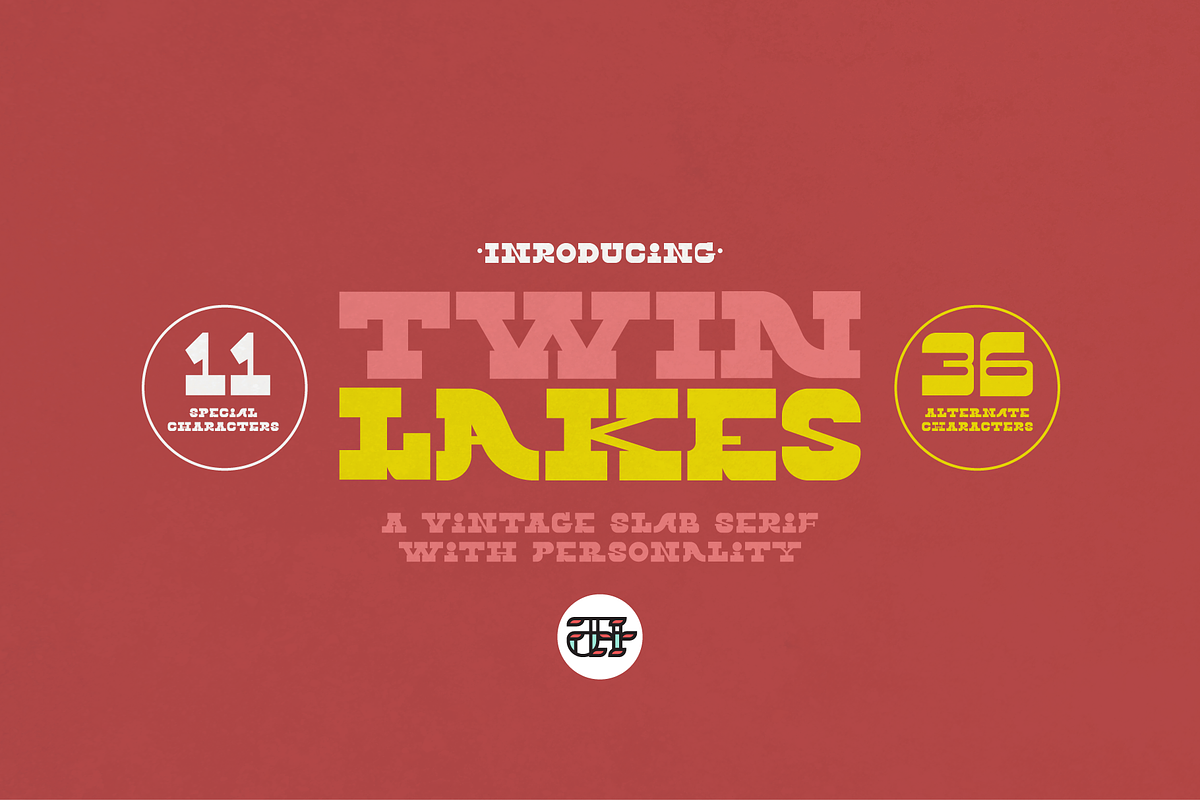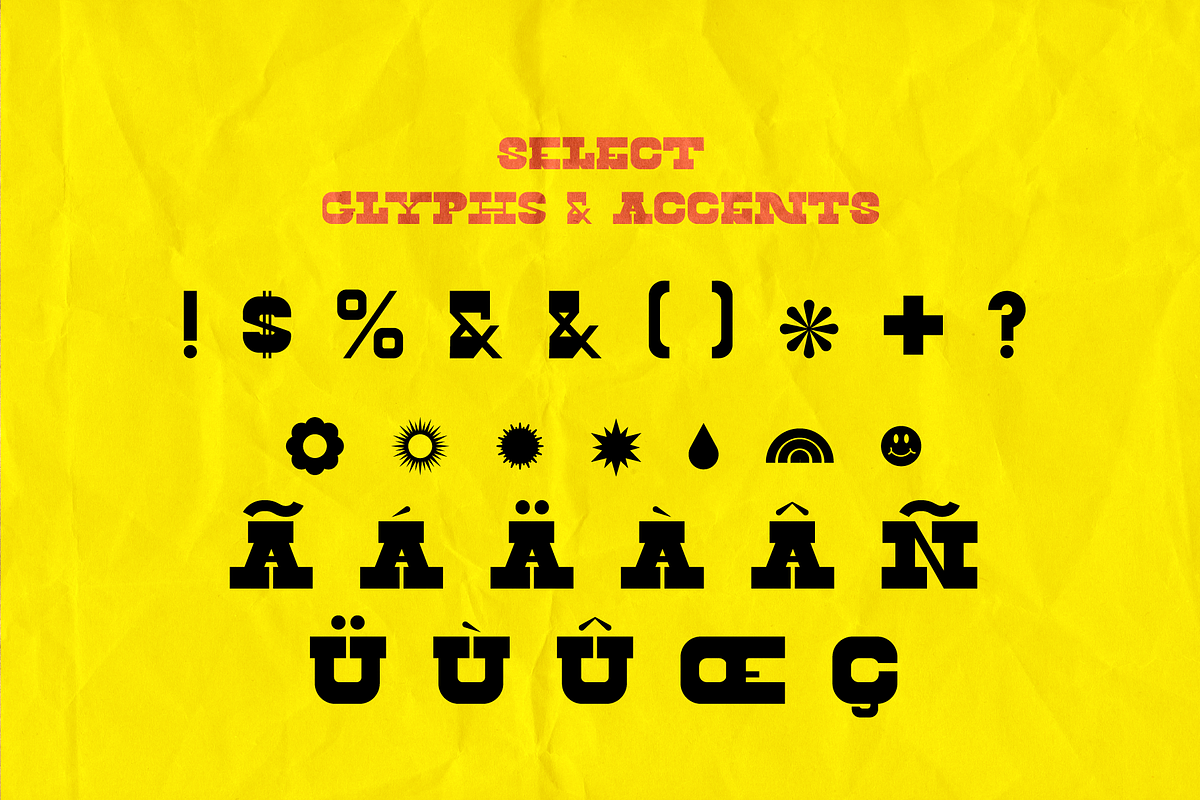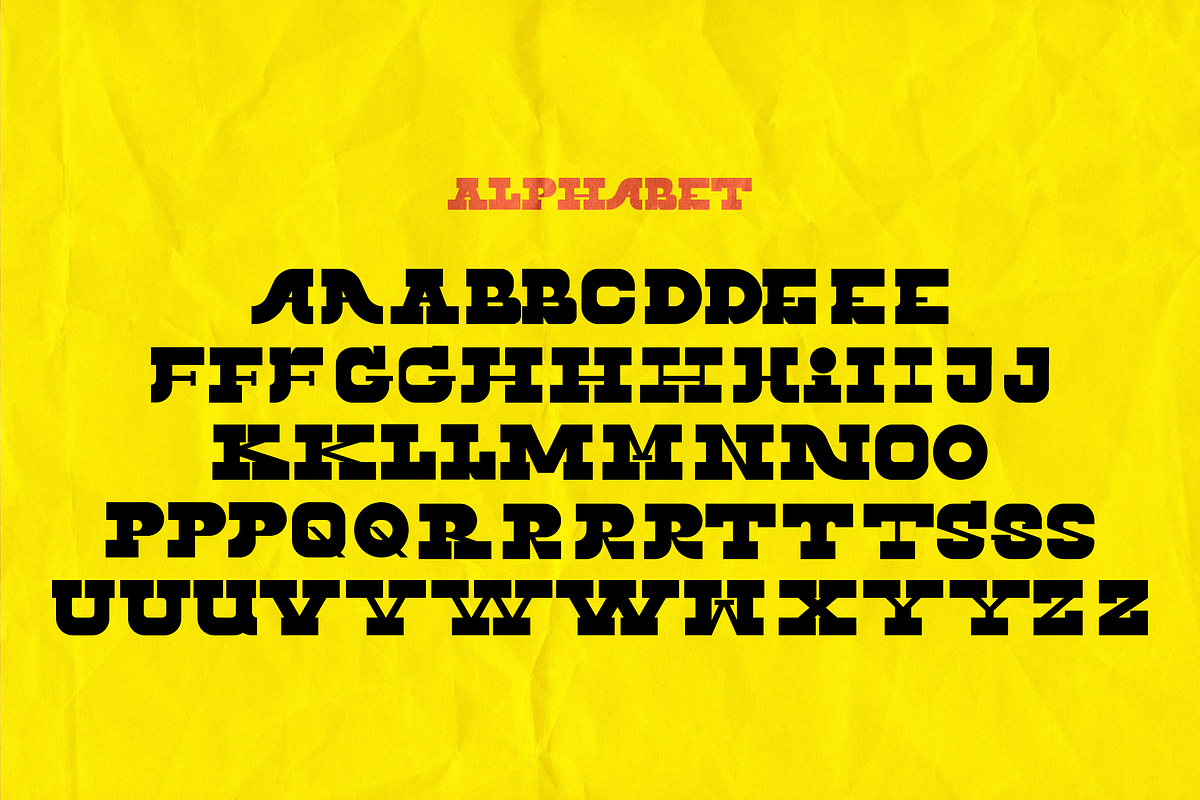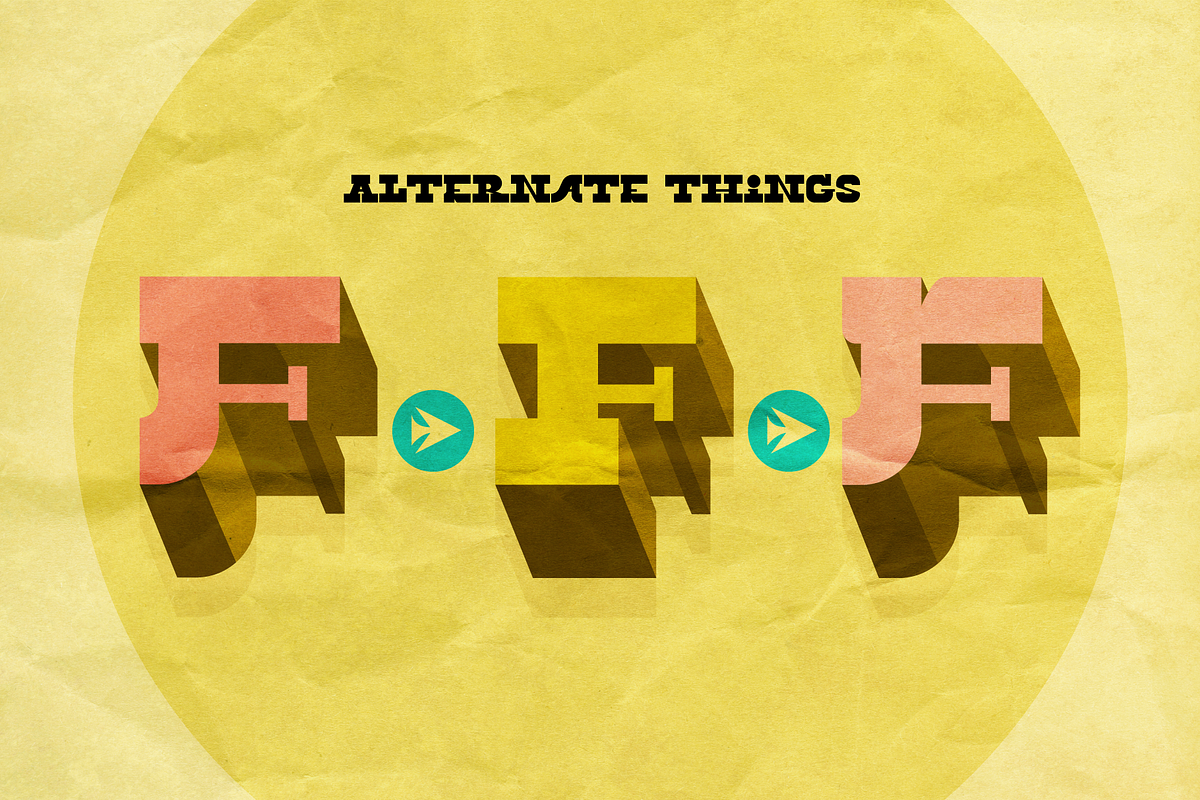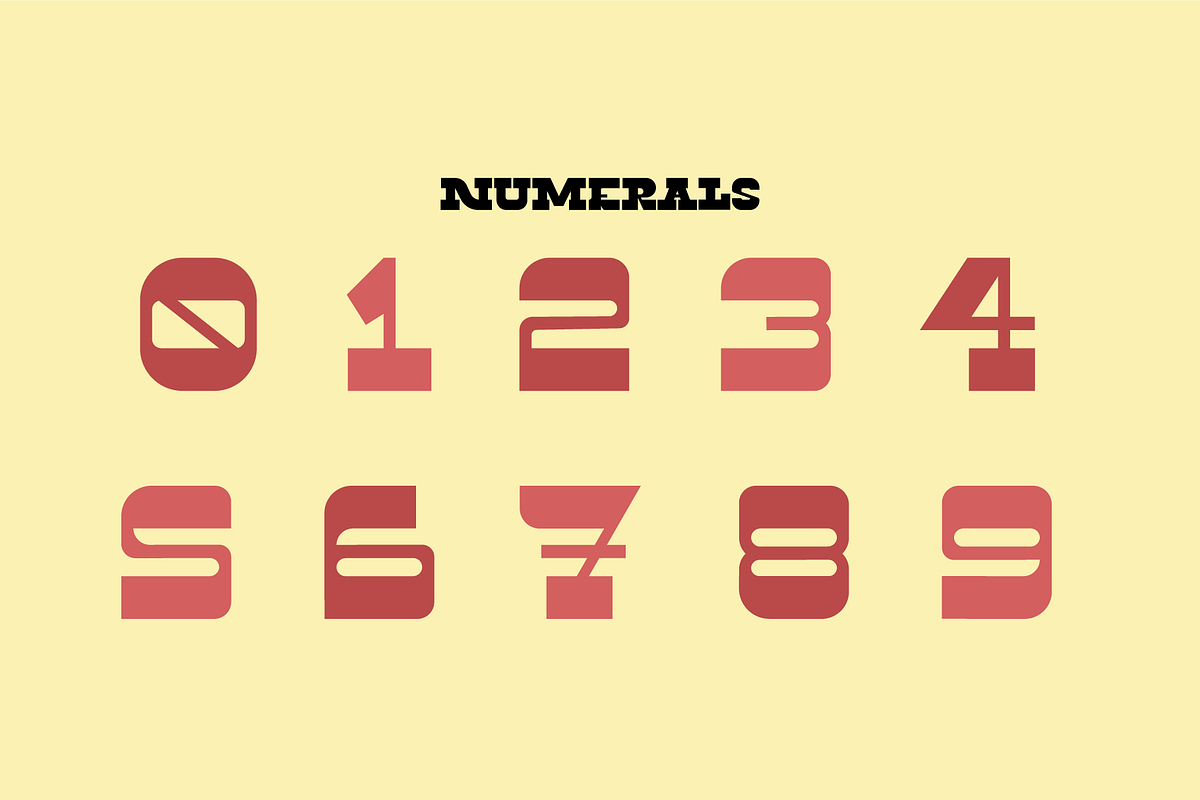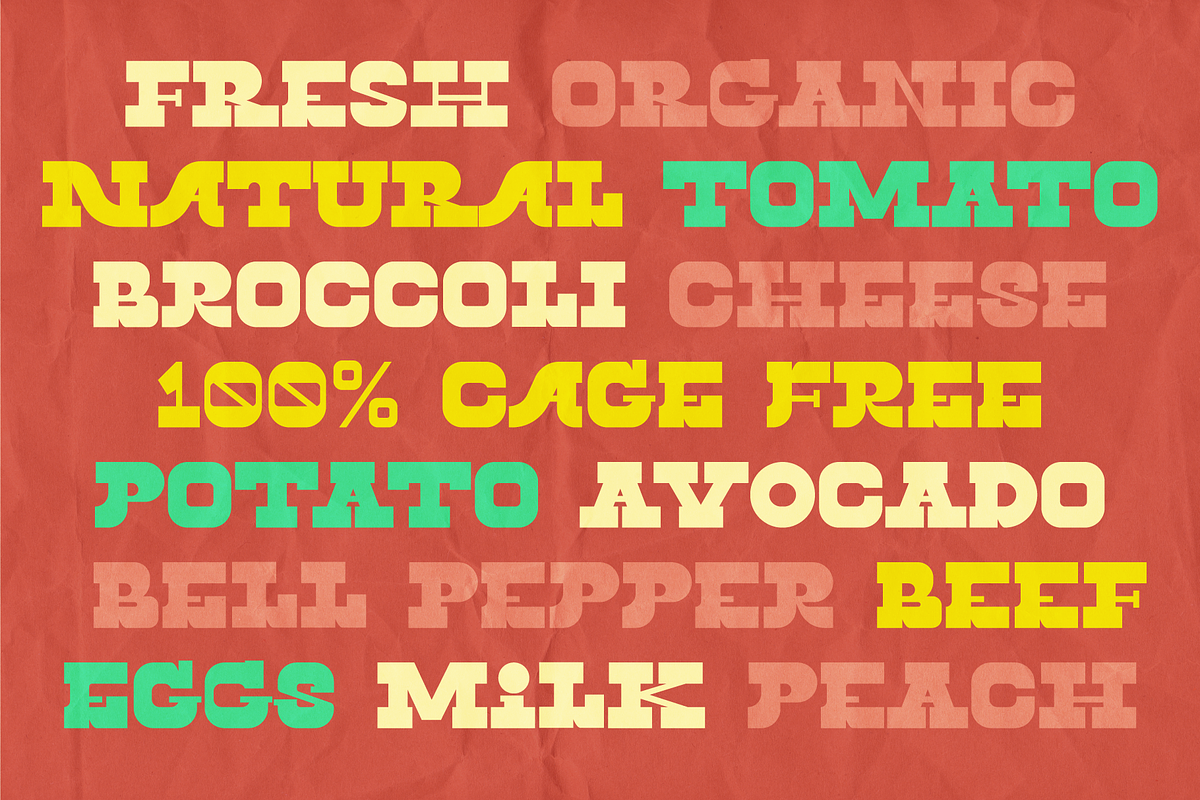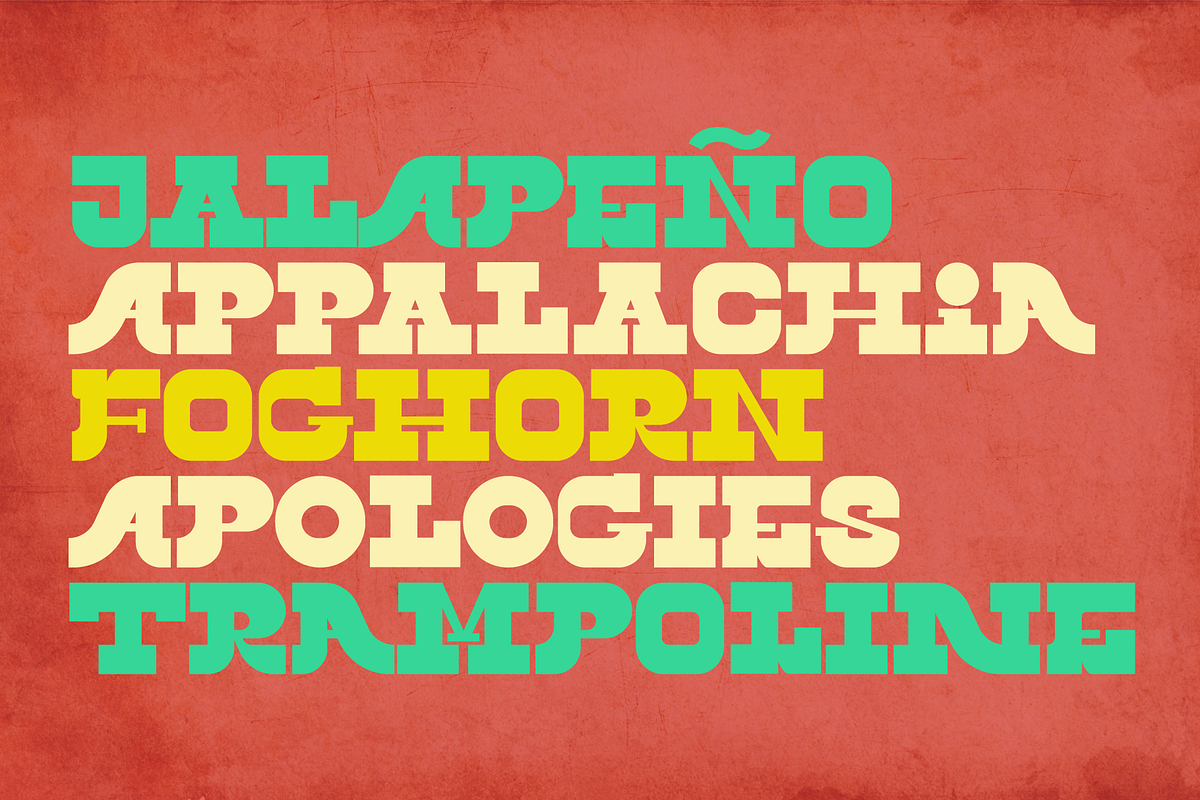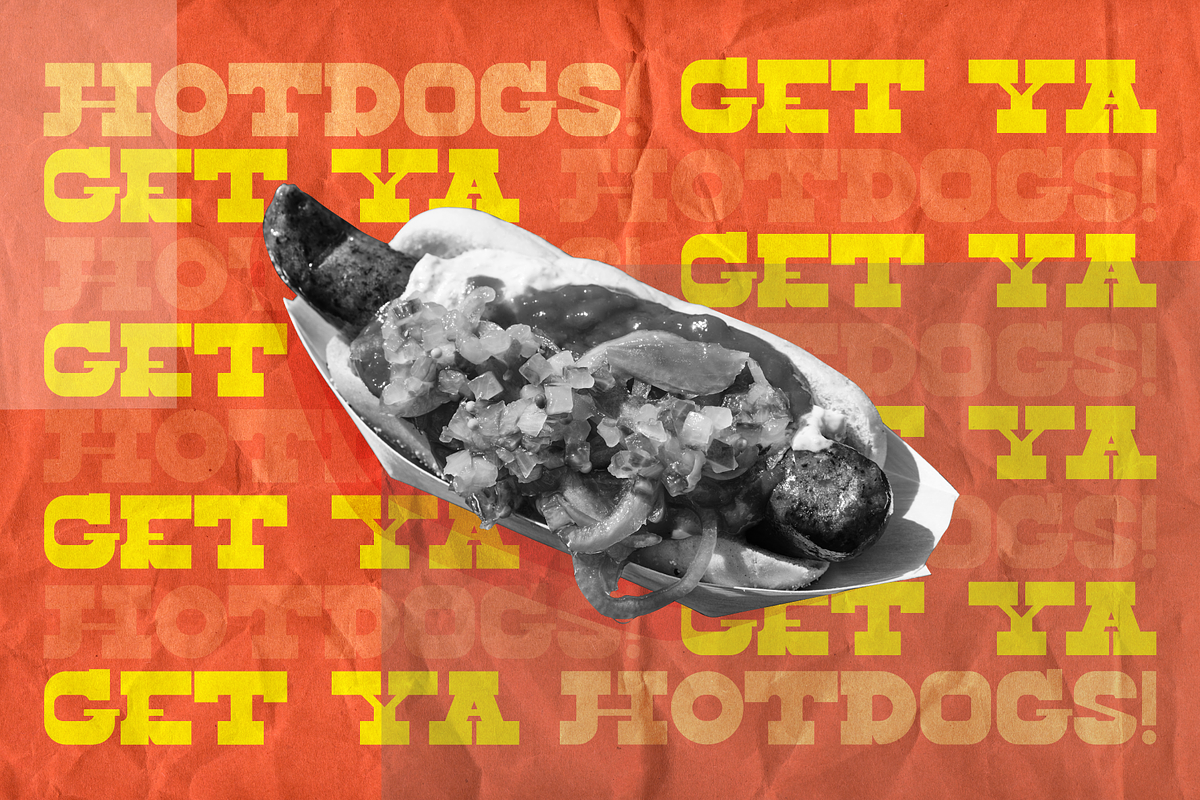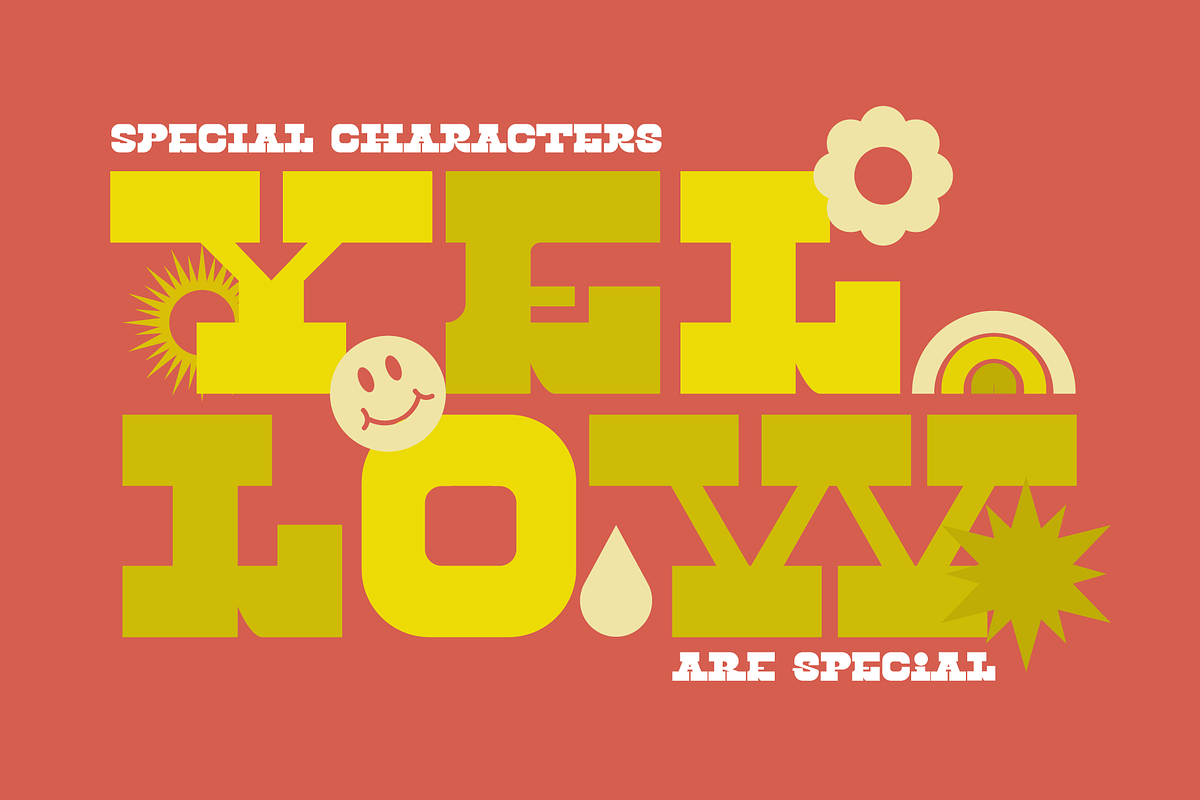
Twin Lakes Display Font
Twin Lakes is vintage slab serif display font with a ton of personality. It's perfect for branding projects and headlines. Twin lakes has multiple Alternative Characters, some special characters, and a full set of numerals. Simply switch between upper and lowercase for initial alternative letters.
Included: 11 Special Characters, 36 Alternative Characters, Select Accented Characters, Select Punctuation